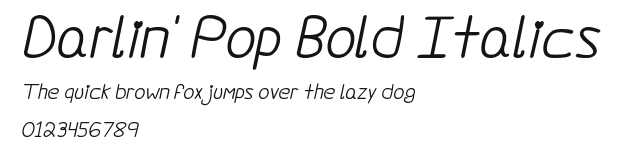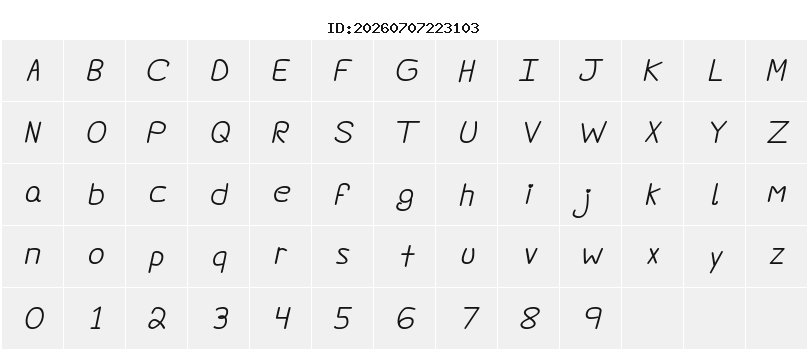
• Font Name: Darlin' Pop Bold Italics
• Full Font Name: Darlin' Pop Bold Italics
• Version: Version 1.00 January 18, 2013, initial release
About Darlin' Pop Bold Italics.ttf
Darlin' Pop Bold Italics.ttf is a modern, elegant sans-serif font designed for ultimate readability and visual harmony. Perfect for branding, headlines, web design, and print materials.